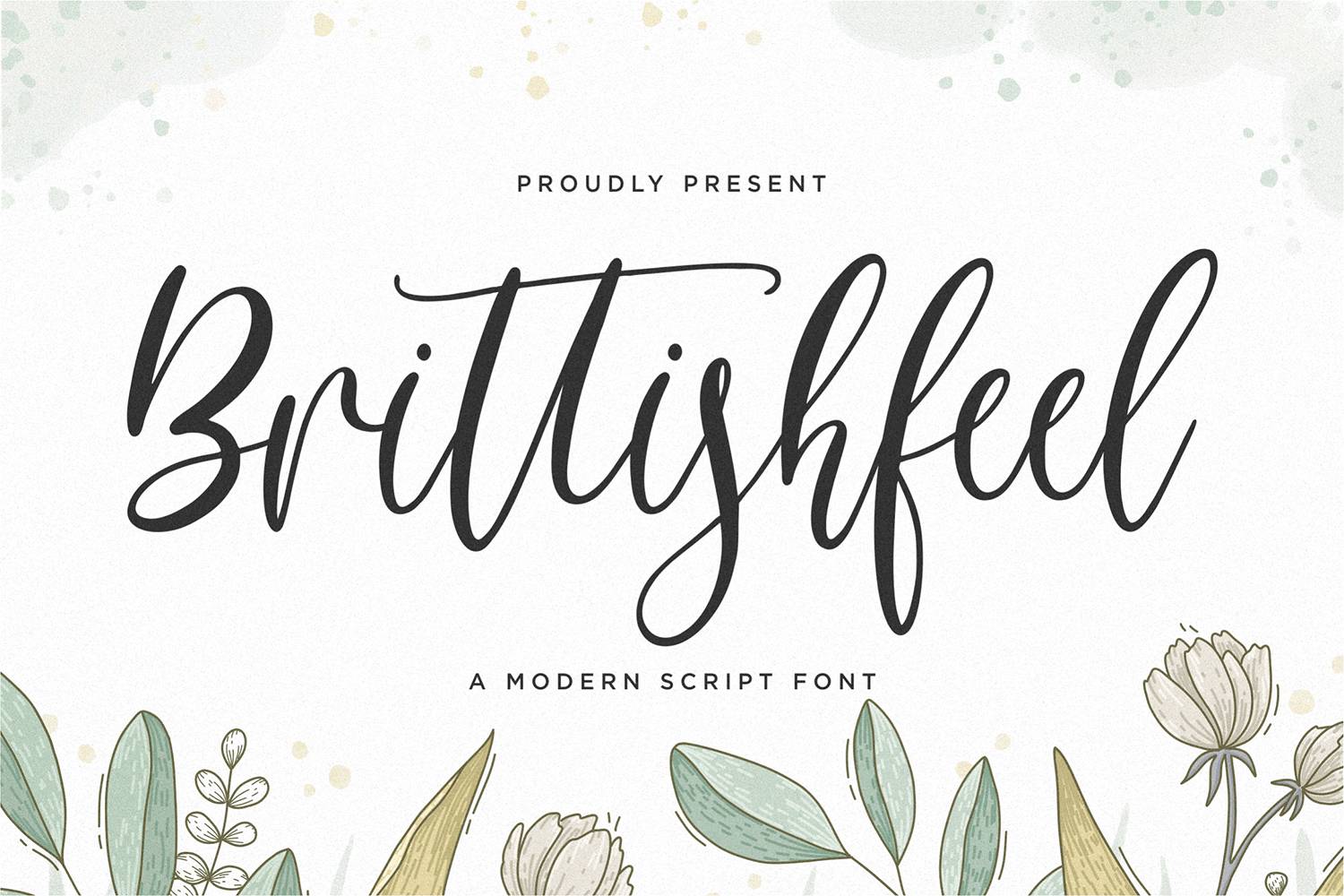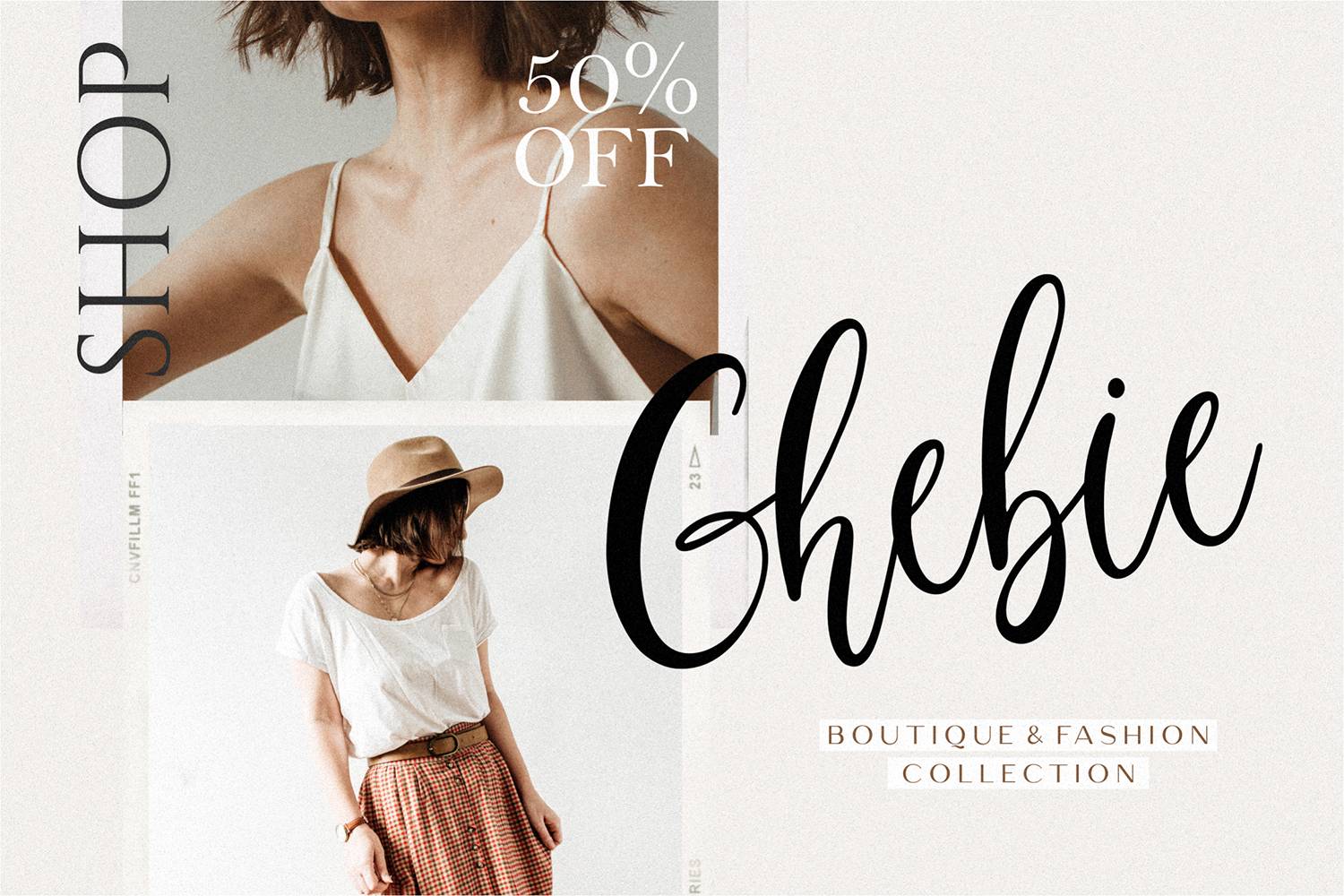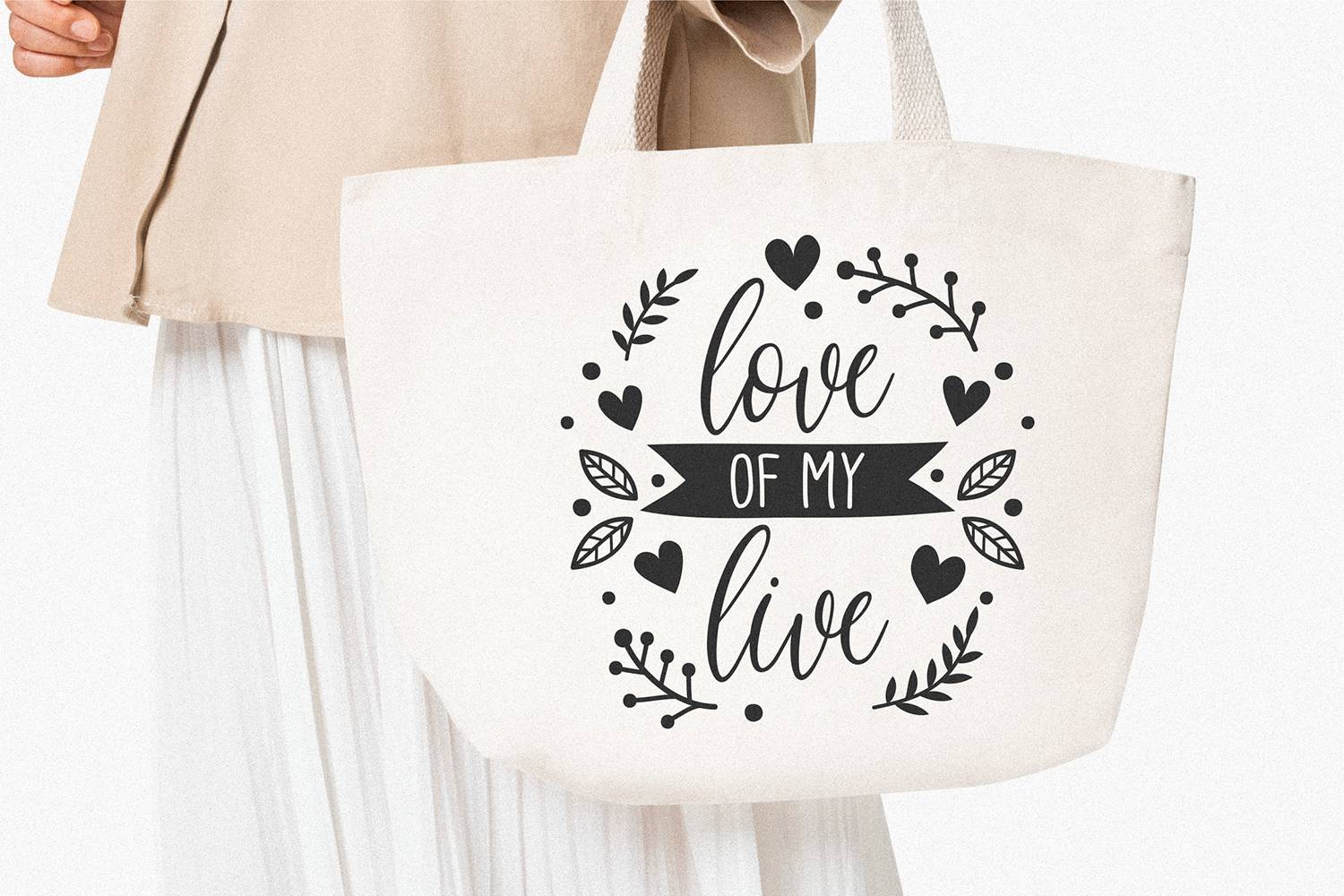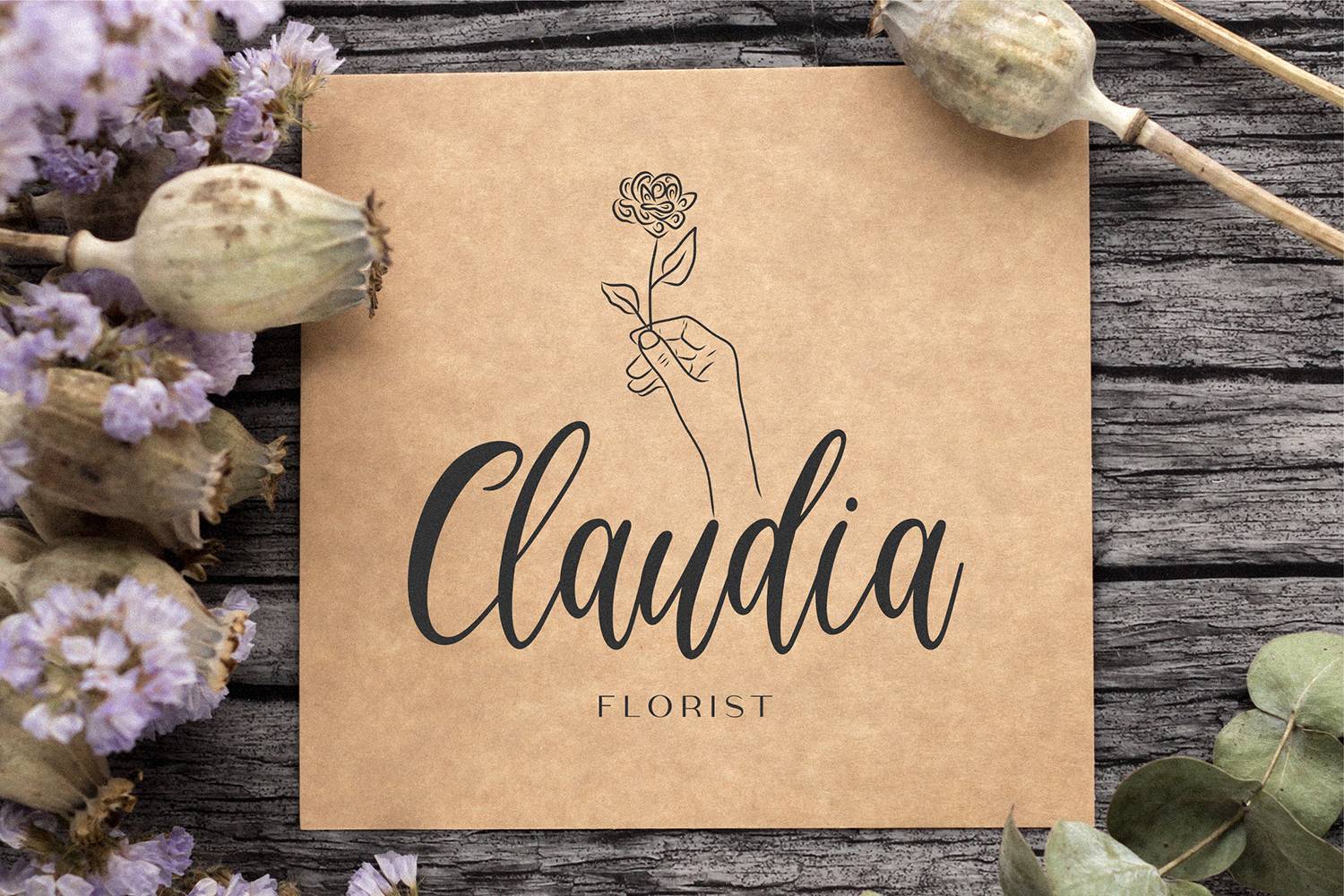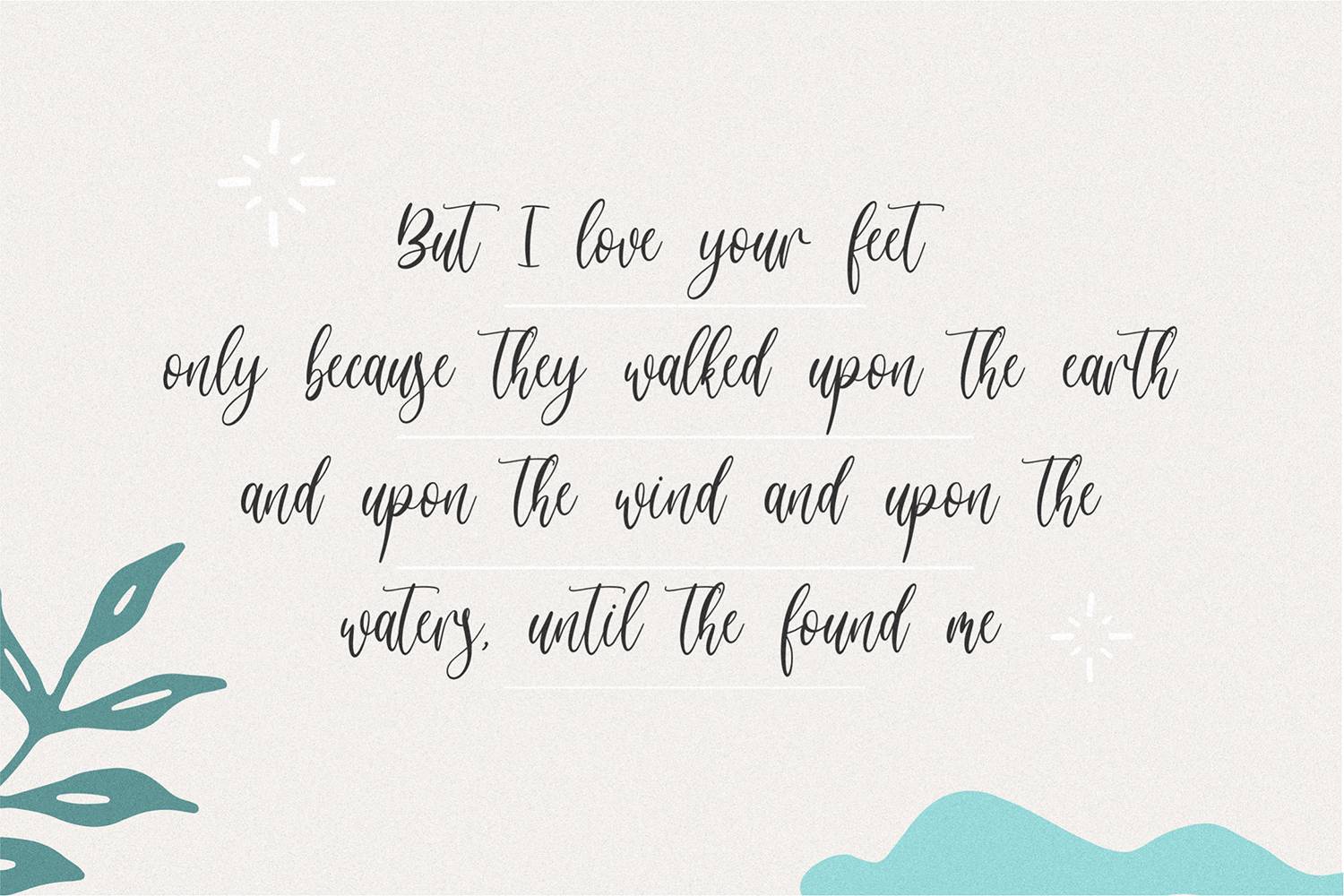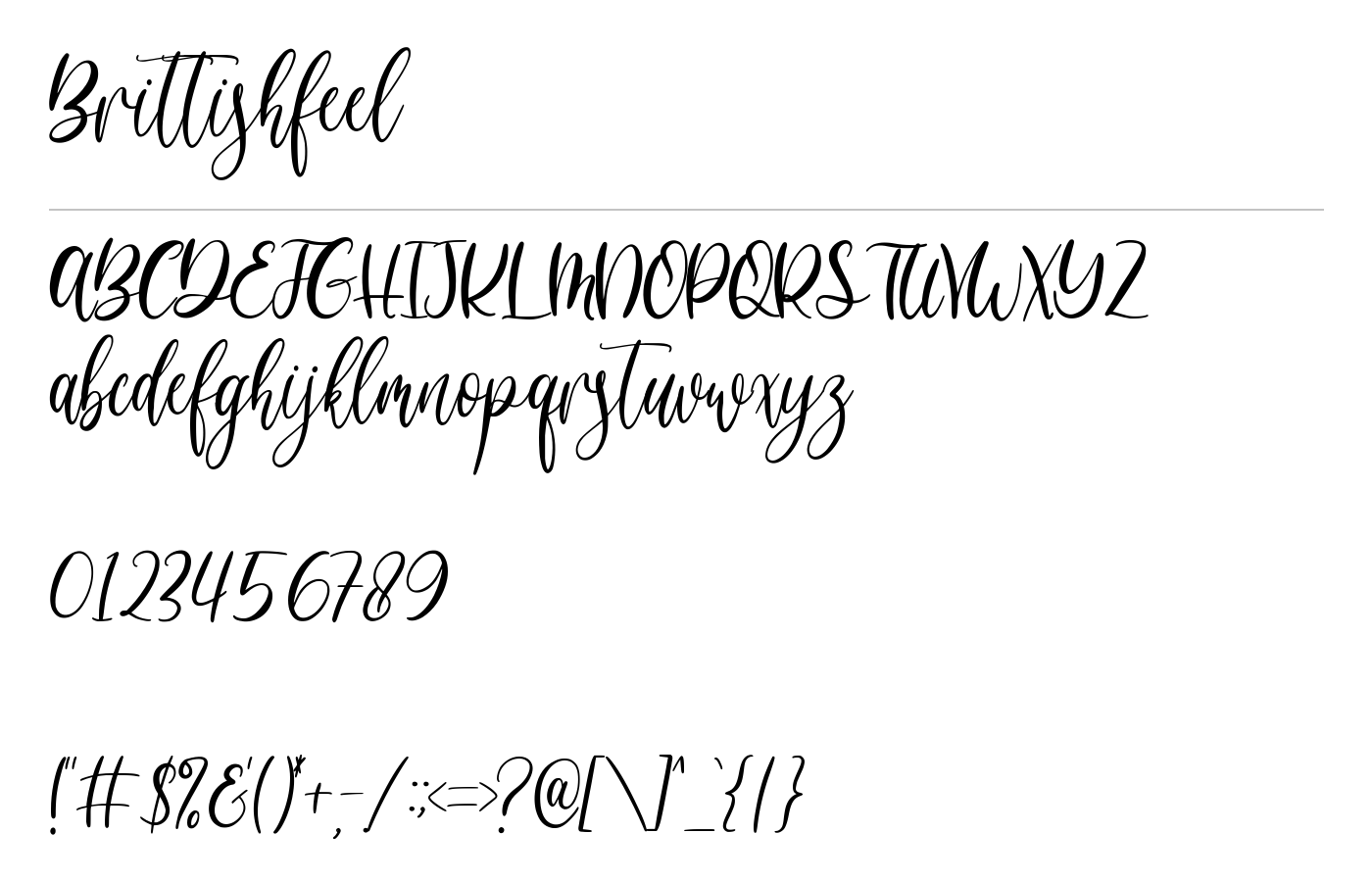
Brittishfeel is a stylish handwritten script font that features elegant, flowing letterforms with high contrast between thin and thick strokes, giving it a graceful and modern look. Its tall x-height and smooth curves make it perfect for adding a personal, sophisticated touch to invitations, branding, and headlines where a chic, artistic flair is desired. This font shines in fashion, luxury packaging, and editorial designs, effortlessly communicating elegance and creativity.
Brittishfeel Font
About Brittishfeel Font